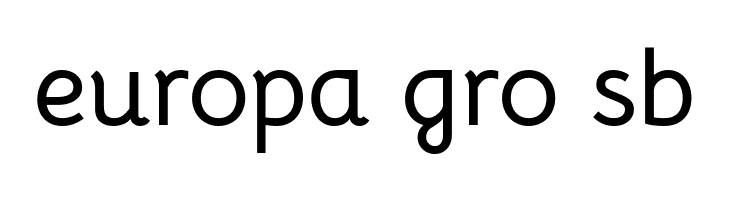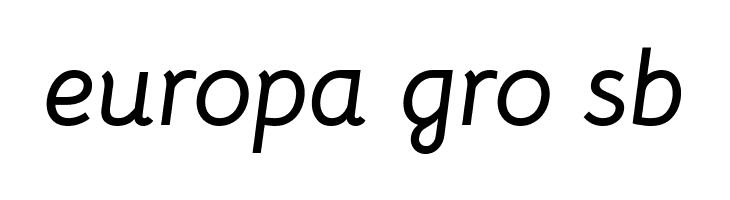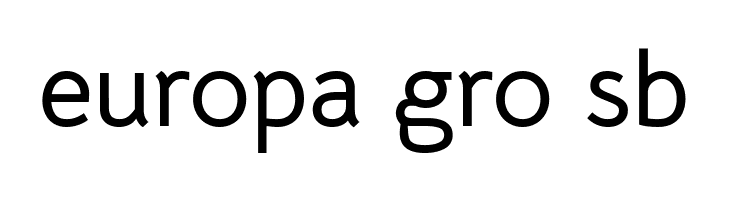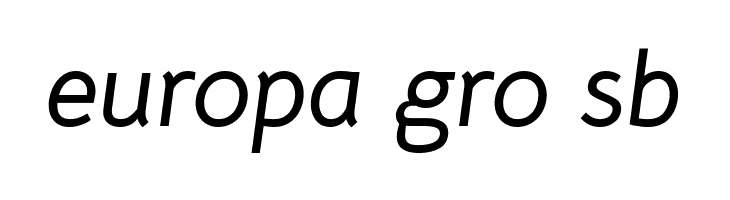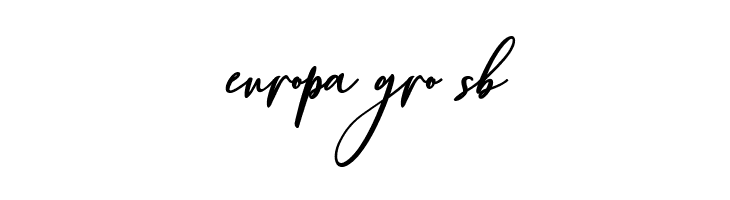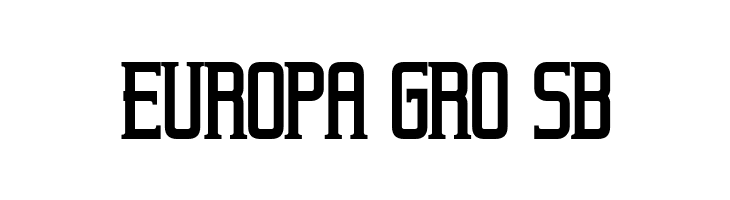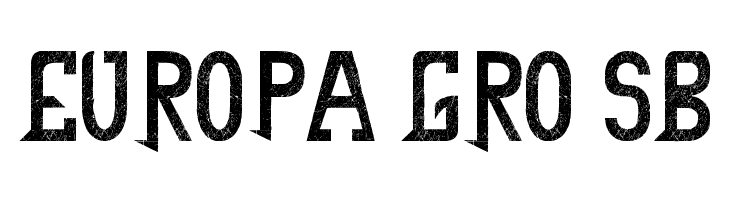
• Before and afther Bold
A bold, distressed font with a vintage, stencil-like appearance.
• Beholder Bold
A bold, condensed font with a geometric style and consistent stroke width.
• Belgrad Bold
A bold, geometric font with a modern and clean aesthetic.
• Bellindia bold
A bold, elegant script font with flowing, cursive letterforms.
• Bellota Bold
A playful, modern font with rounded, elegant characters.
• Bellota Bold
A playful and modern font with rounded edges and smooth curves.
• Bellota Bold Italic
A bold, italicized font with a playful and modern design.
• Bellota Bold Italic
A bold, italic font with a playful and modern design.
• Bellota Text Bold
A modern, bold font with smooth curves and balanced proportions.
• Bellota Text Bold Italic
A modern, bold italic font with smooth curves and excellent readability.